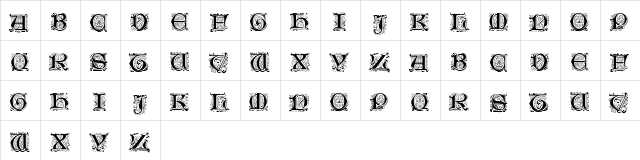
GenzschInitials Regular
| Foundry | Digitized by Dan X. Solo. Software \ by Dover Publications, Inc |
Design Context for GenzschInitials Typeface
GenzschInitials is a composed and adaptable typeface that performs quietly and consistently across a wide range of design contexts.